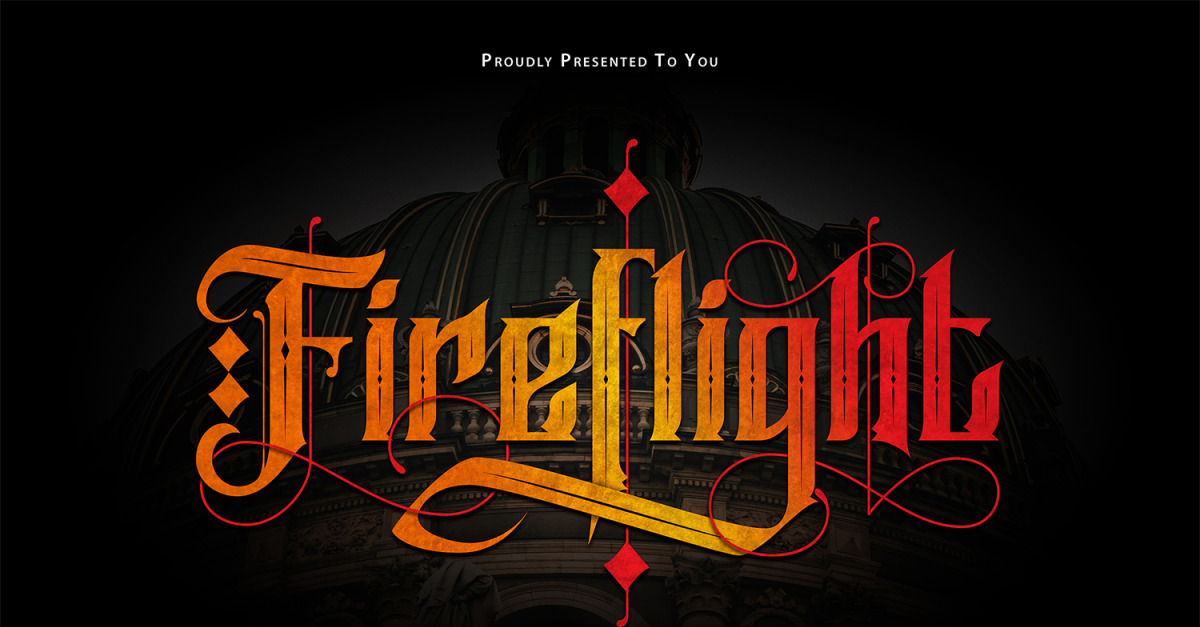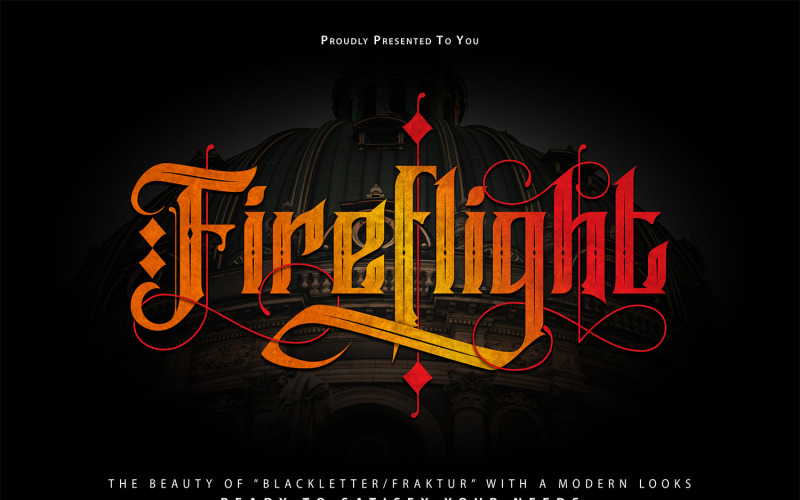
FireFlight | Blackletter Modern Font
**FireFlight | Blackletter Modern Font** with a calligraphy style, So beautiful on invitation like greeting cards, branding materials, business cards, quotes, posters, and more!